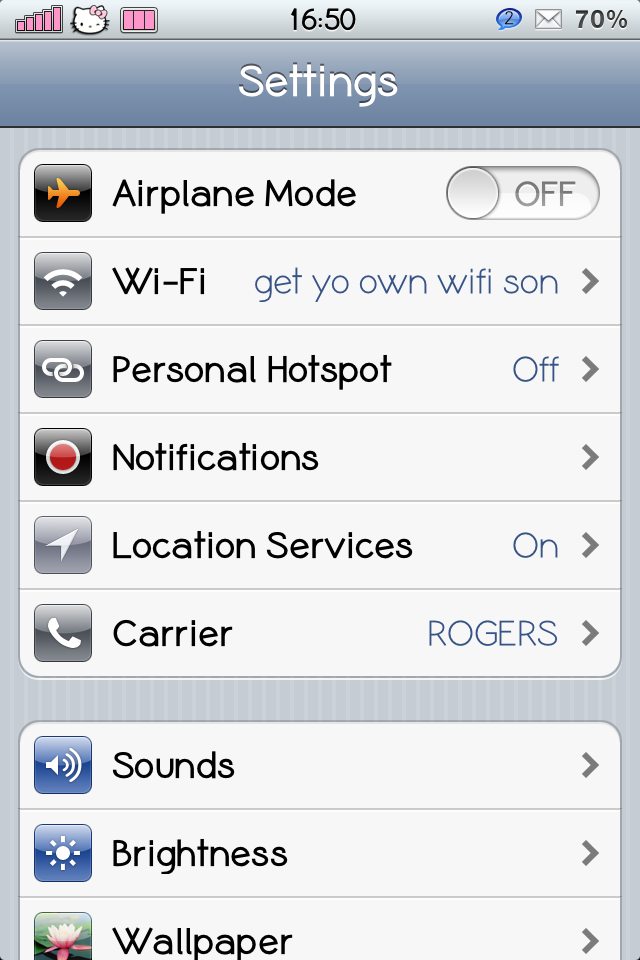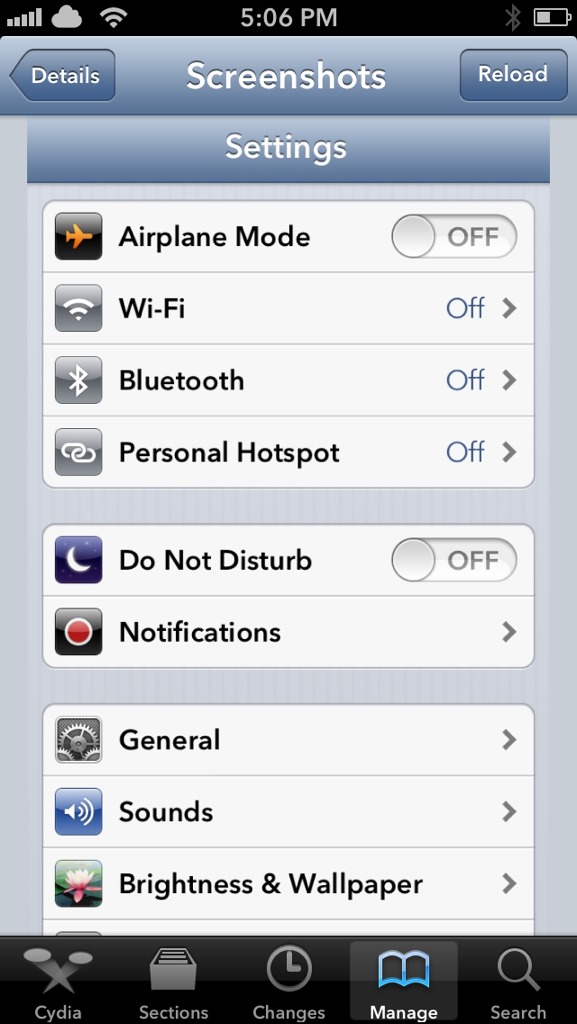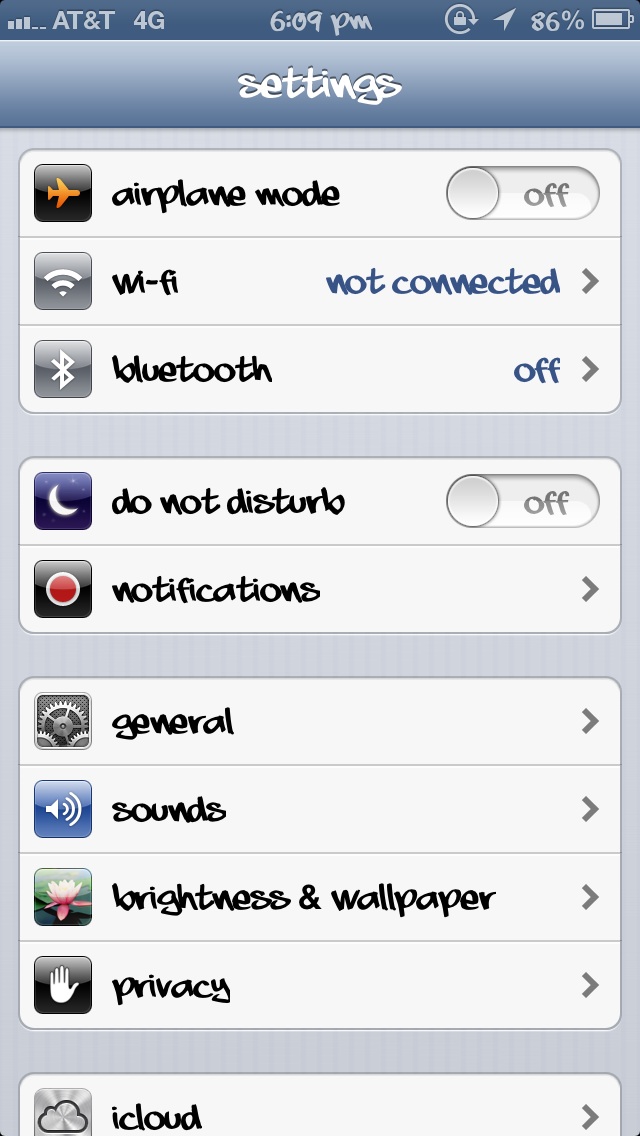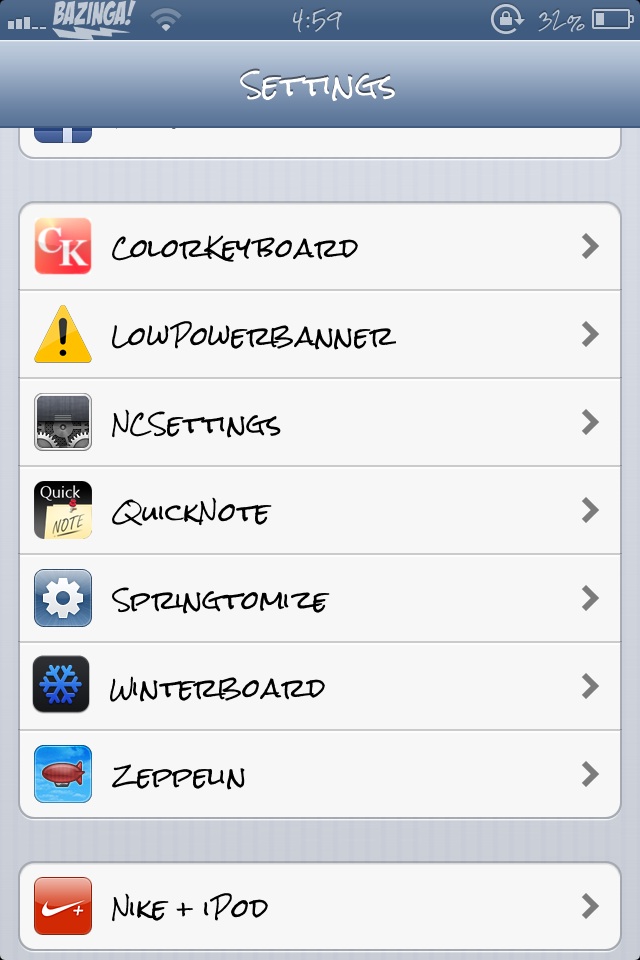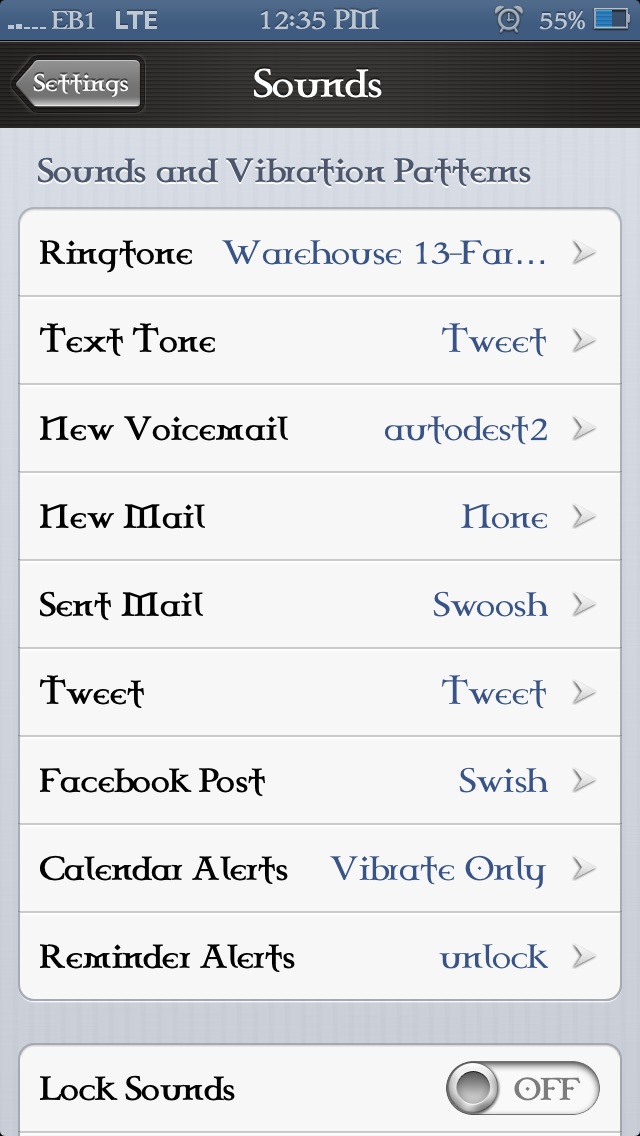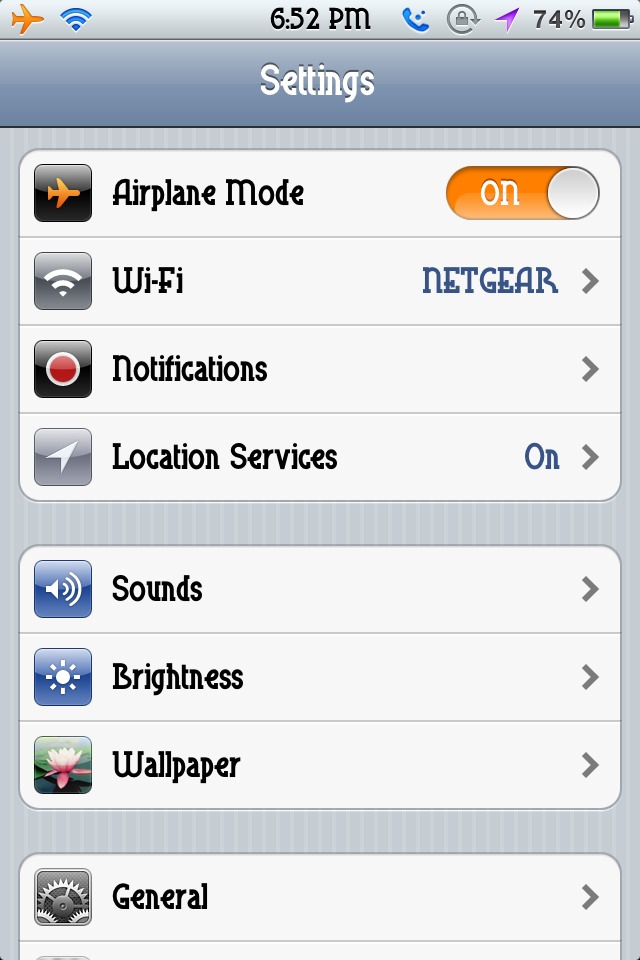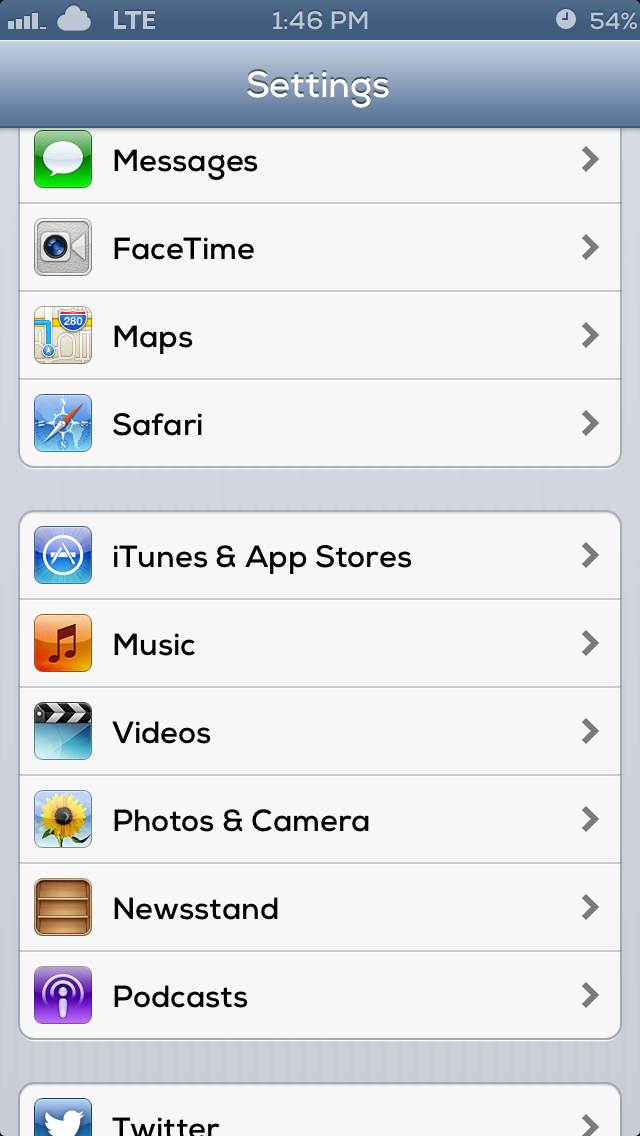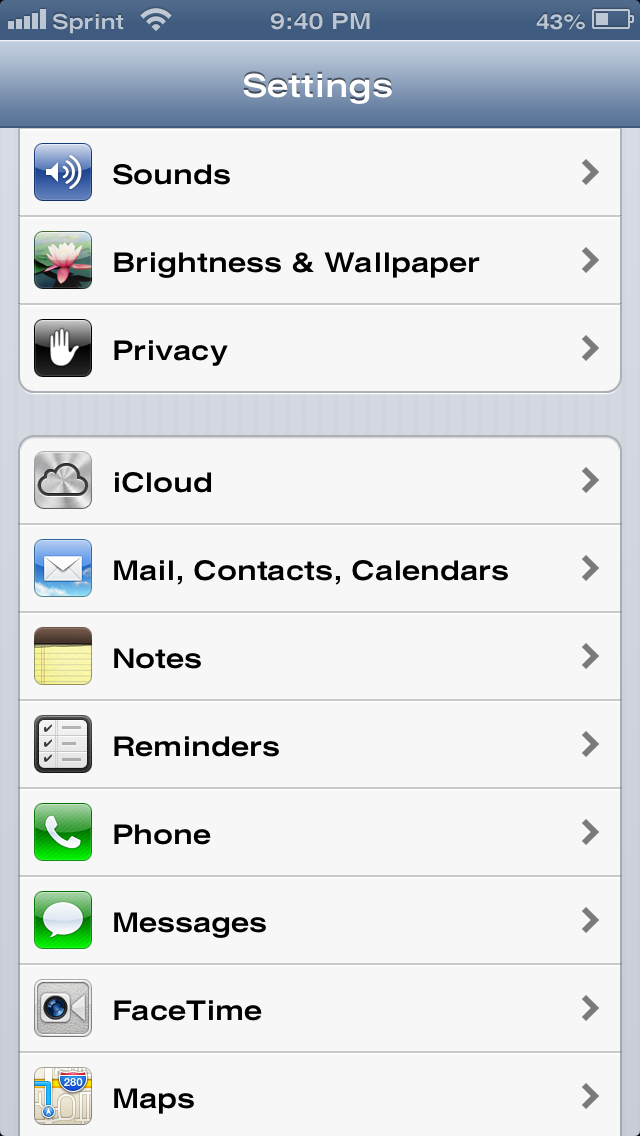
Are there any Bytafonts that make the font bigger and easier to read? The ones I have tried seem to make them smaller. Thanks
I'm using Xerox. I LOVE this font.
Interesting. It's weird I don't see xerox in the bytafont app but I see it in cydia. Is it new?
I'm not sure if it's new, I just downloaded as a font itself from Cydia, and then it automatically became an option to choose in the BytaFont app. (Kind of like how you download a theme, and it pops up in Winterboard)